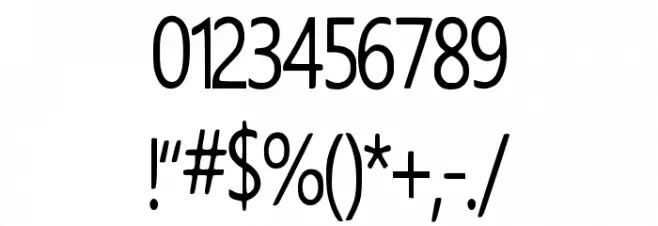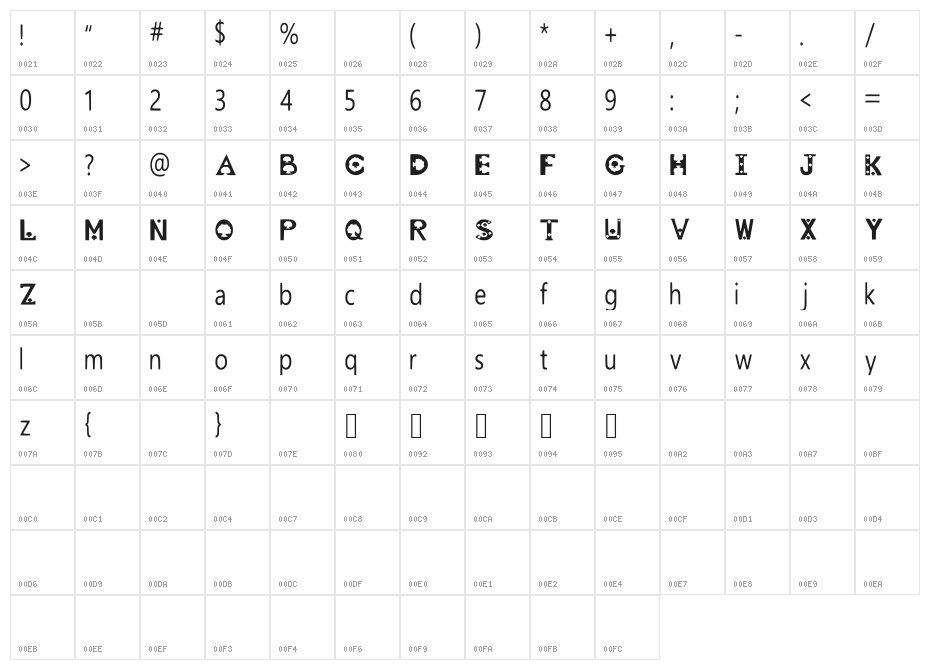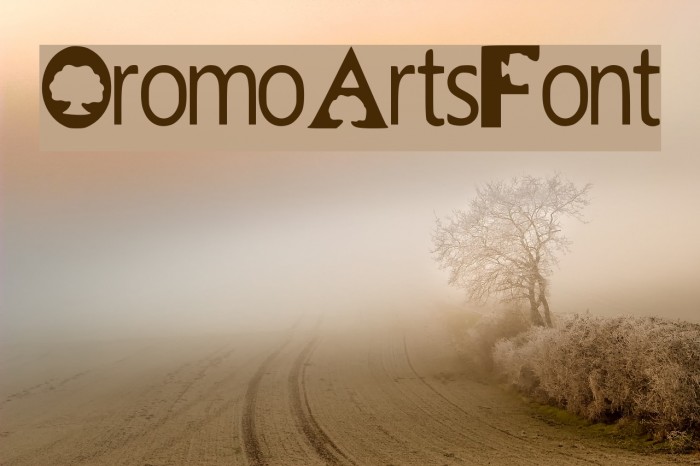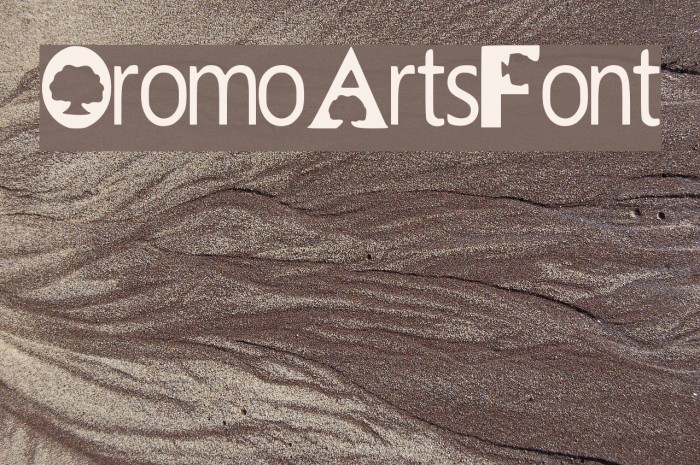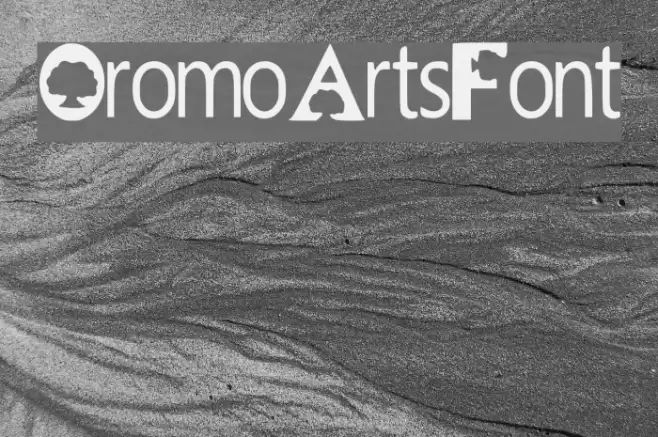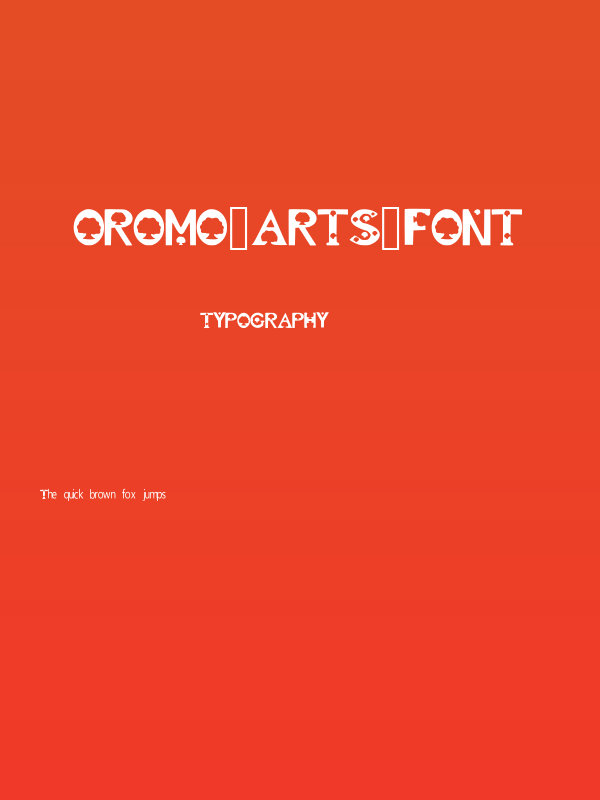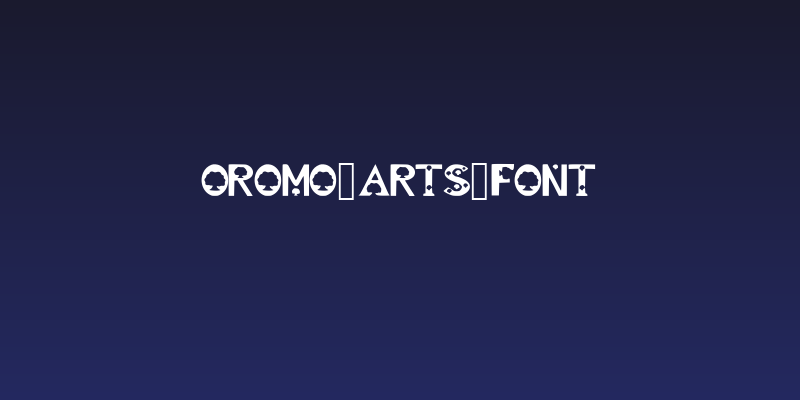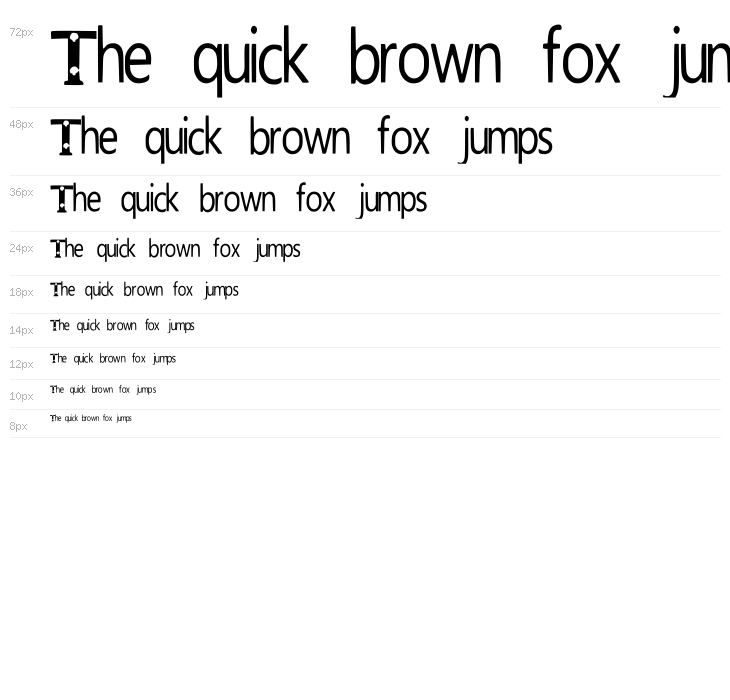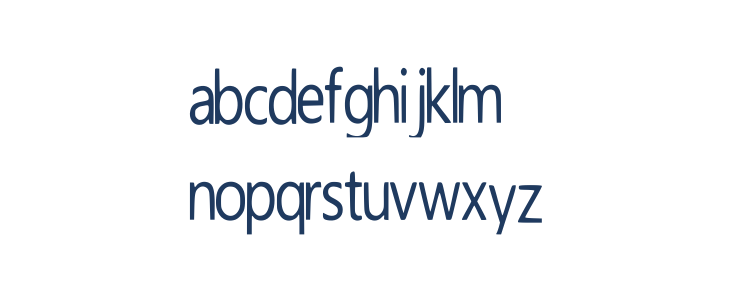
Oromo_Arts_Font Font
Oromo_Arts_Font Description
This font features a unique and artistic design, combining bold, decorative uppercase letters with a playful, whimsical style. The uppercase letters are adorned with intricate patterns and cutouts, creating a visually striking appearance. The lowercase letters are more straightforward, offering a clean and modern sans-serif look that contrasts with the decorative uppercase. The numerals and special characters maintain the simplicity of the lowercase, ensuring readability. This font is perfect for projects that require a blend of creativity and clarity, making it suitable for artistic and modern applications.
| Use Case | Headlines, Logos, Artistic projects |
| Proposed Projects | Ideal for artistic posters, creative branding, unique invitations, and modern digital graphics. |